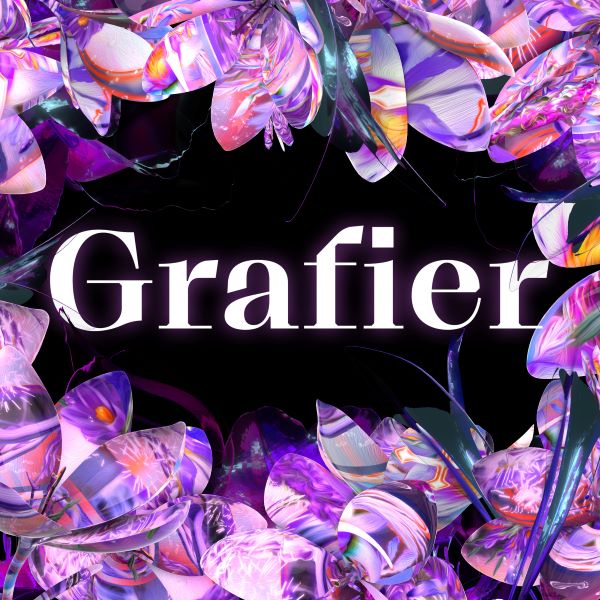
Grafier Font
Grafier by Alex Slobzheninov is a serif typeface that takes the 18th-century English tradition of Baskerville as its starting point, then charts its own unmistakable course. Its most defining feature is an uncompromising set of perfectly straight, sharply joined serifs — a brutal linearity that permeates the entire design through flag-terminals, chopped forms, and squarish punctuation. The family spans 10 styles across five weights (Regular to Black) in two contrast variations, all unified in a single variable font with two axes. With support for over 210 Latin and Cyrillic-based languages, Grafier is an architecturally rigorous serif with real editorial and display utility. Free for personal use; commercial licenses available.